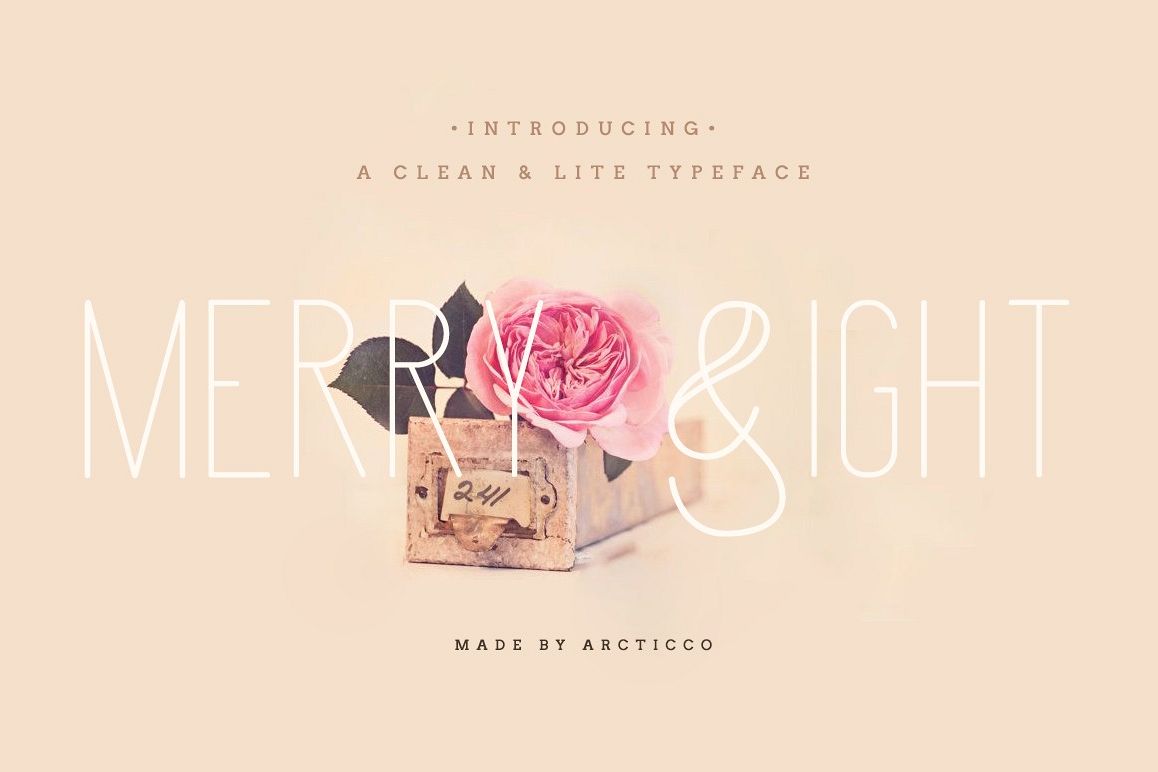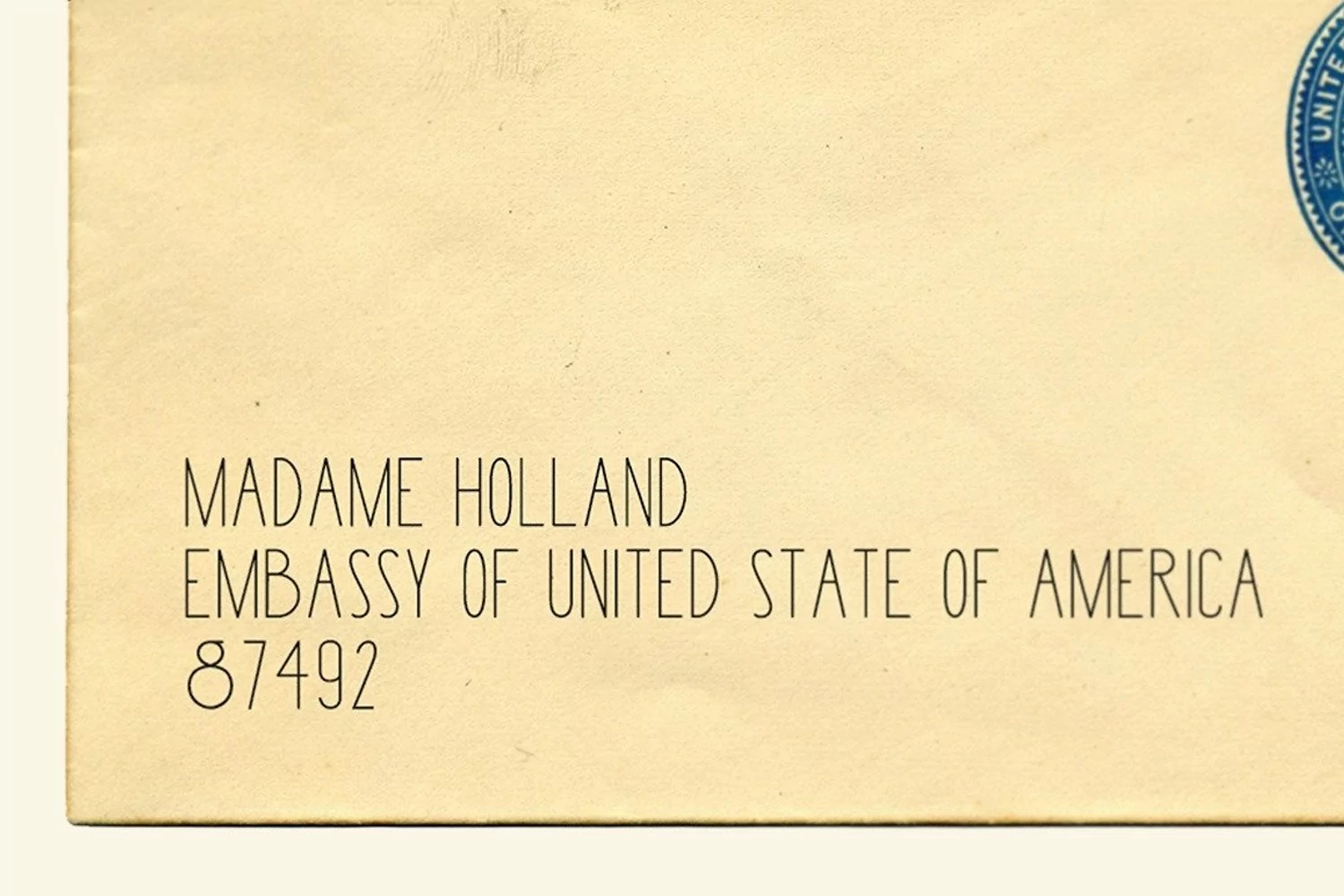
Merry Light Typeface
Introducing Merry Light - a new clean & lite typeface! So beautiful on invitation like greeting cards, branding materials, business cards, quotes, posters, and more!File include: